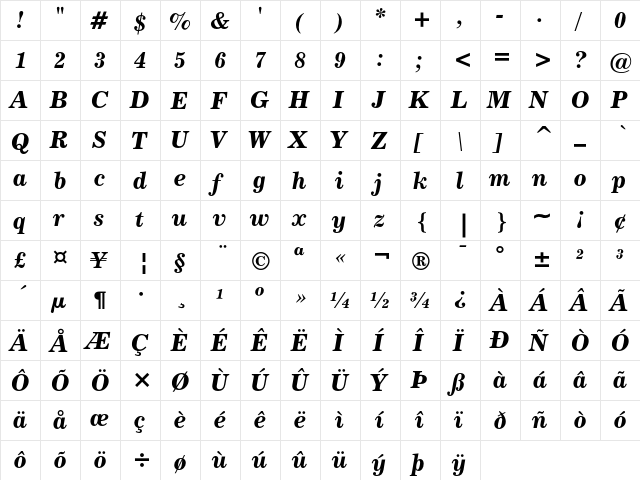
Century 731 Bold Italic Font Preview
Design Context for Century 731 Typeface
Century 731 offers clean, dependable letterforms without strong stylistic allegiance, making it a practical choice for designers who need flexibility. Its italic angle brings a sense of urgency and motion to the letterforms. The heavy weight commands attention and anchors typographic hierarchies.
Pro Tip: Try Century 731 for annotation and caption copy alongside an upright companion — the contrast in angle creates a dynamic but ordered typographic system.